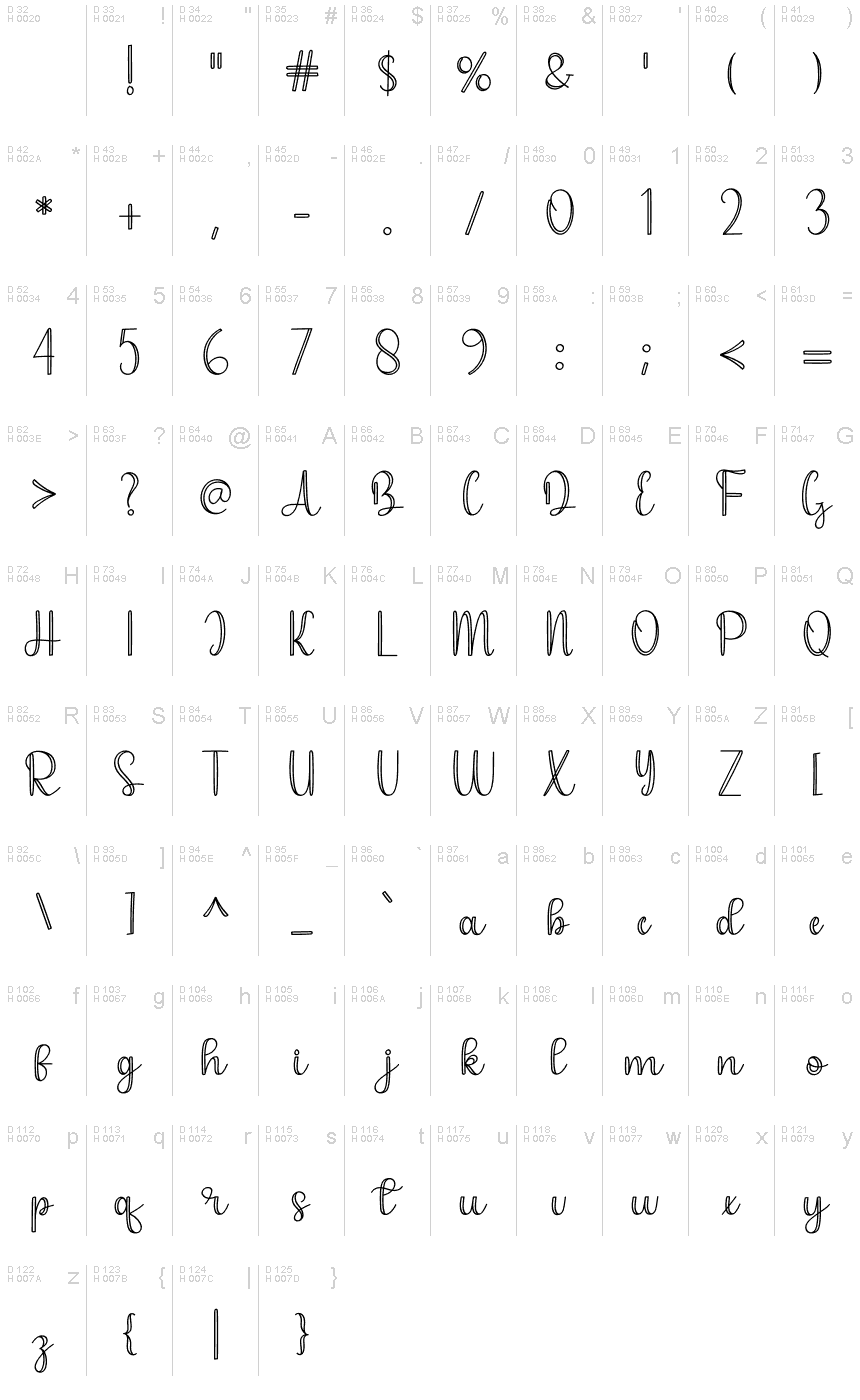
Miserable
Miserable, the calligraphy font designed by Belina Studio, exudes elegance and sophistication. Its flowing curves and graceful strokes make it perfect for wedding invitations, romantic novels, and high-end fashion brands. The semi-bold font weight is ideal for headlines and titles while the regular weight is perfect for body text. Miserable also comes in a variety of widths – narrow, regular, and wide – making it versatile enough to use in a variety of projects from logo design to packaging. Add a touch of refinement to your next project with Miserable Calligraphy Font.
the latest style letters are perfect for wall displays, wedding invitations, social media post logos, advertisements, product packaging, product designs, labels, photography, watermarks, invitations, stationery, and any project that requires taste handwriting.